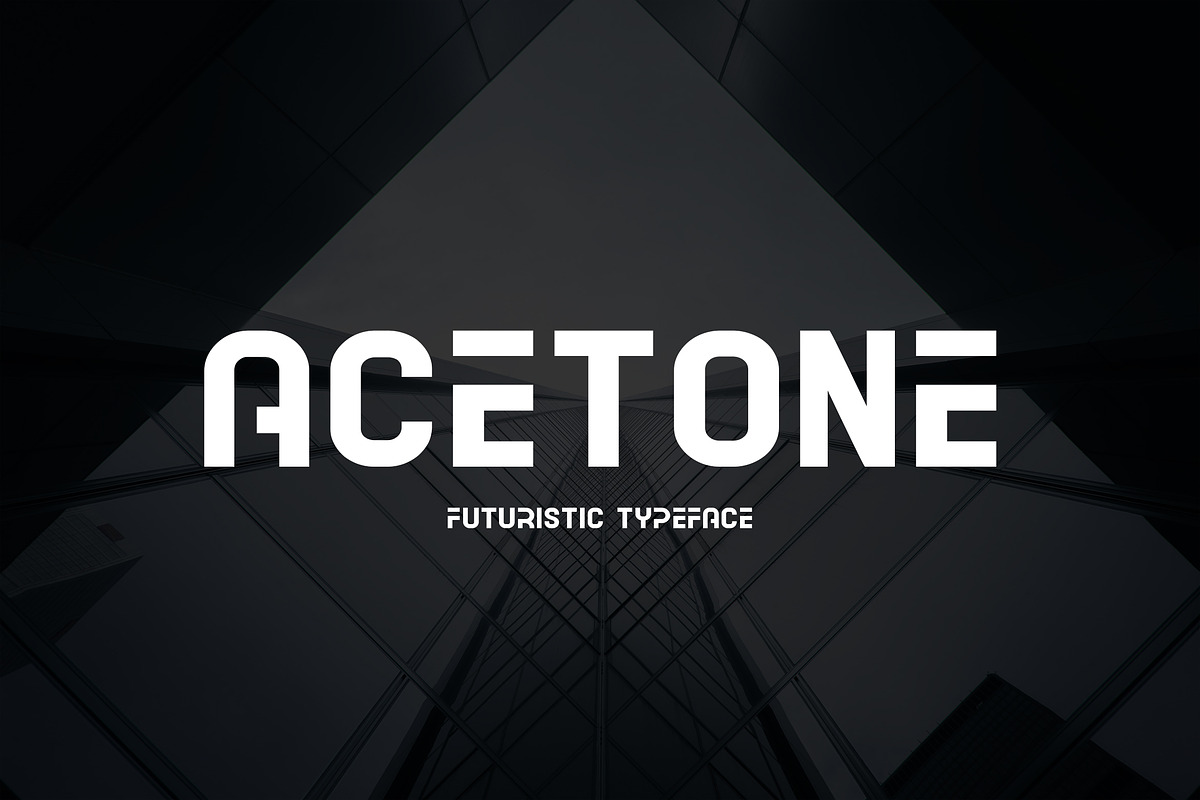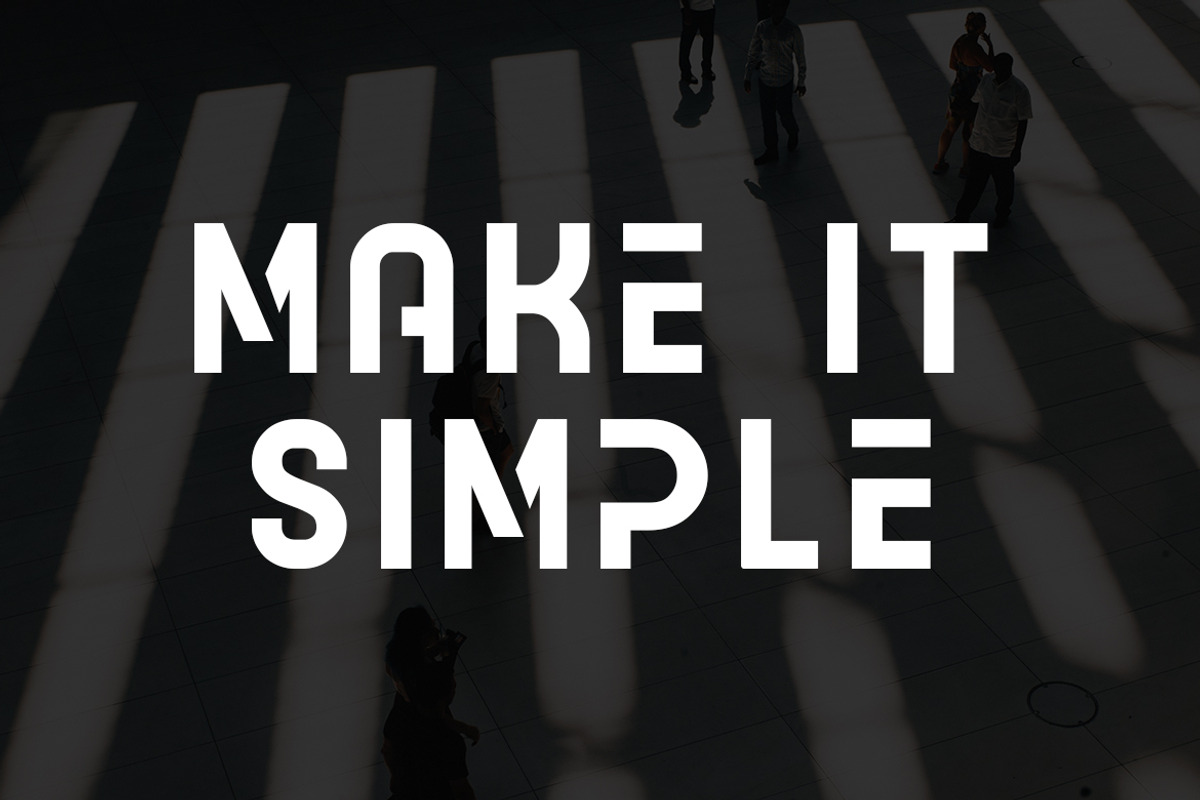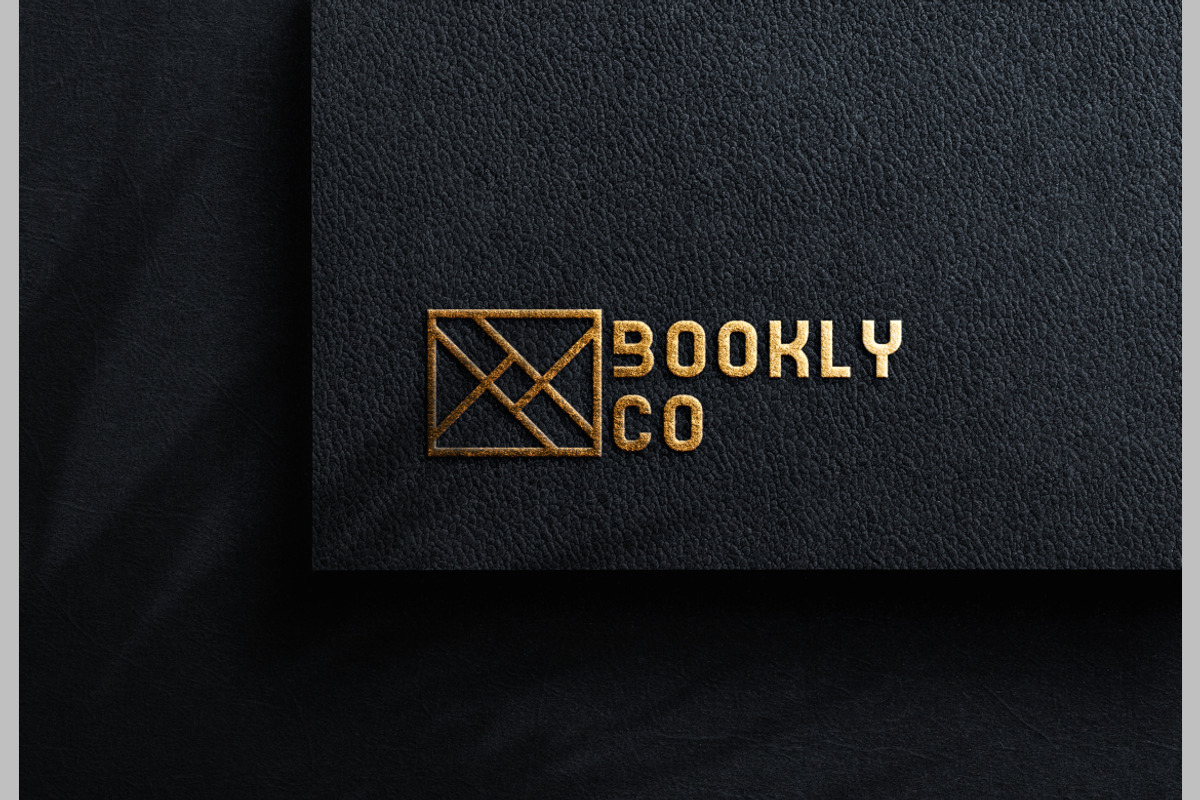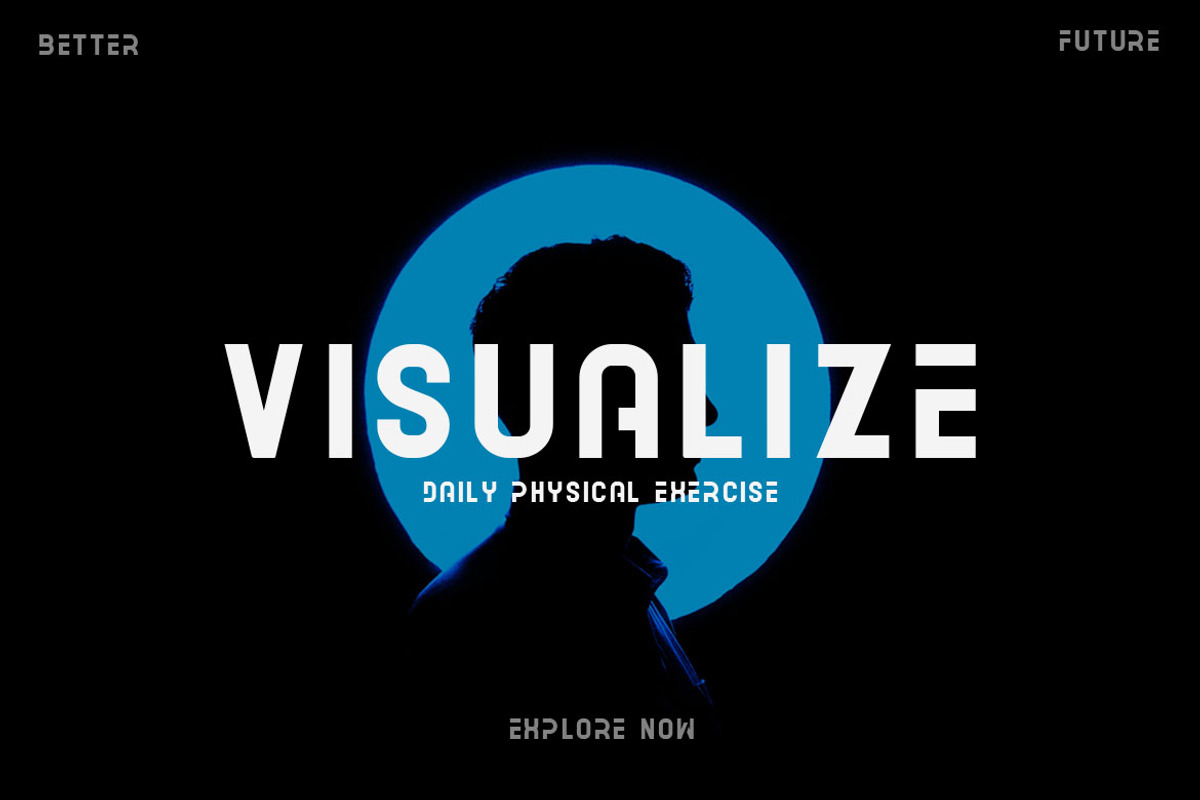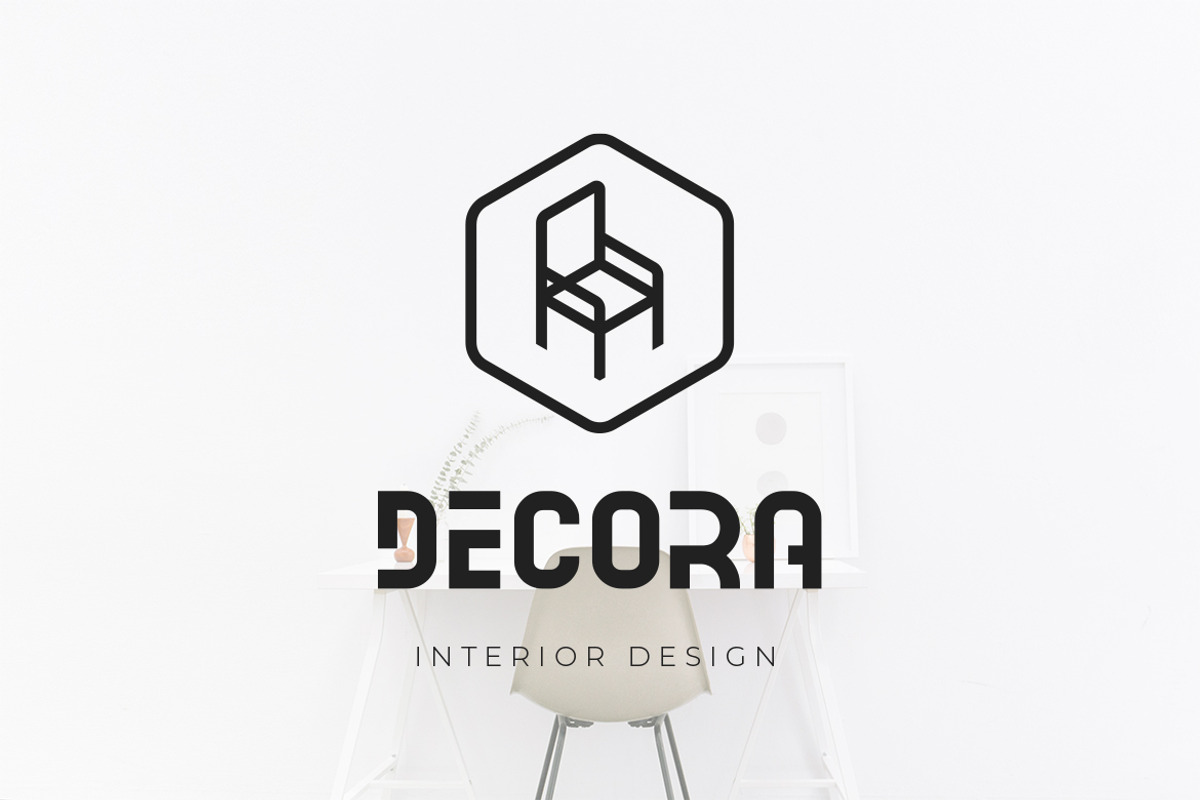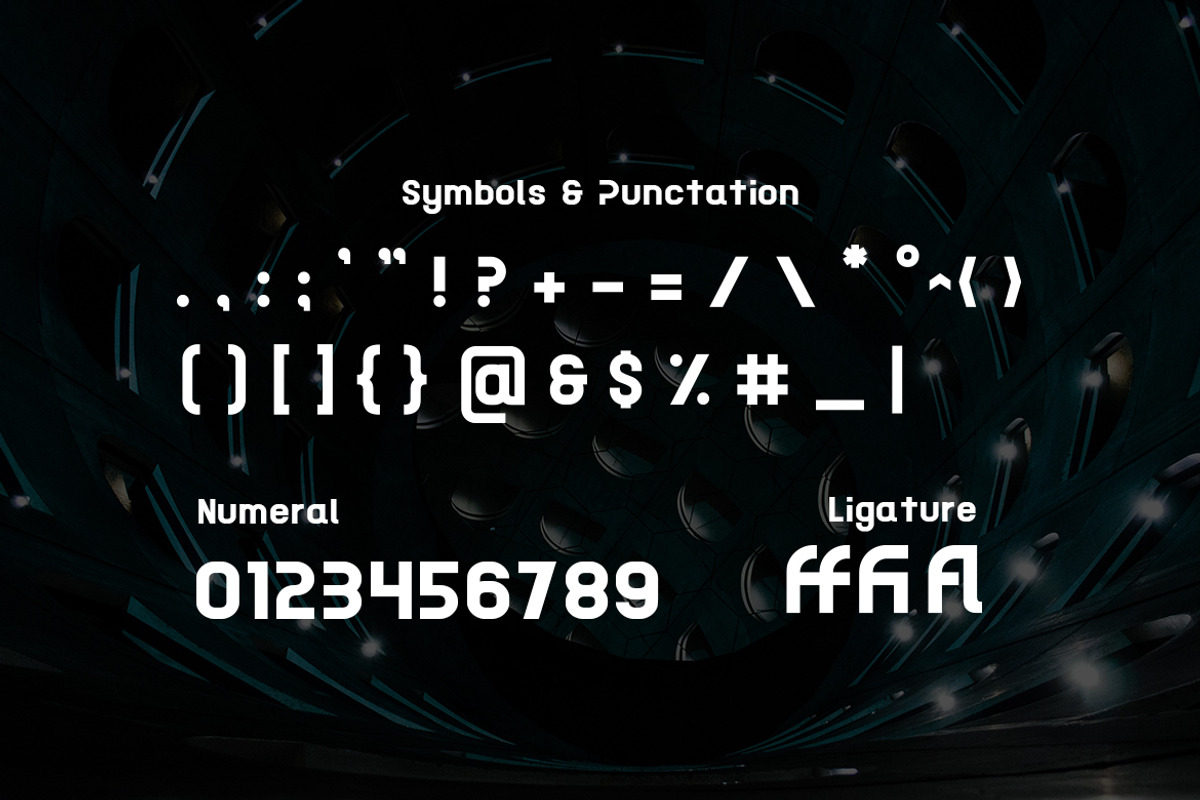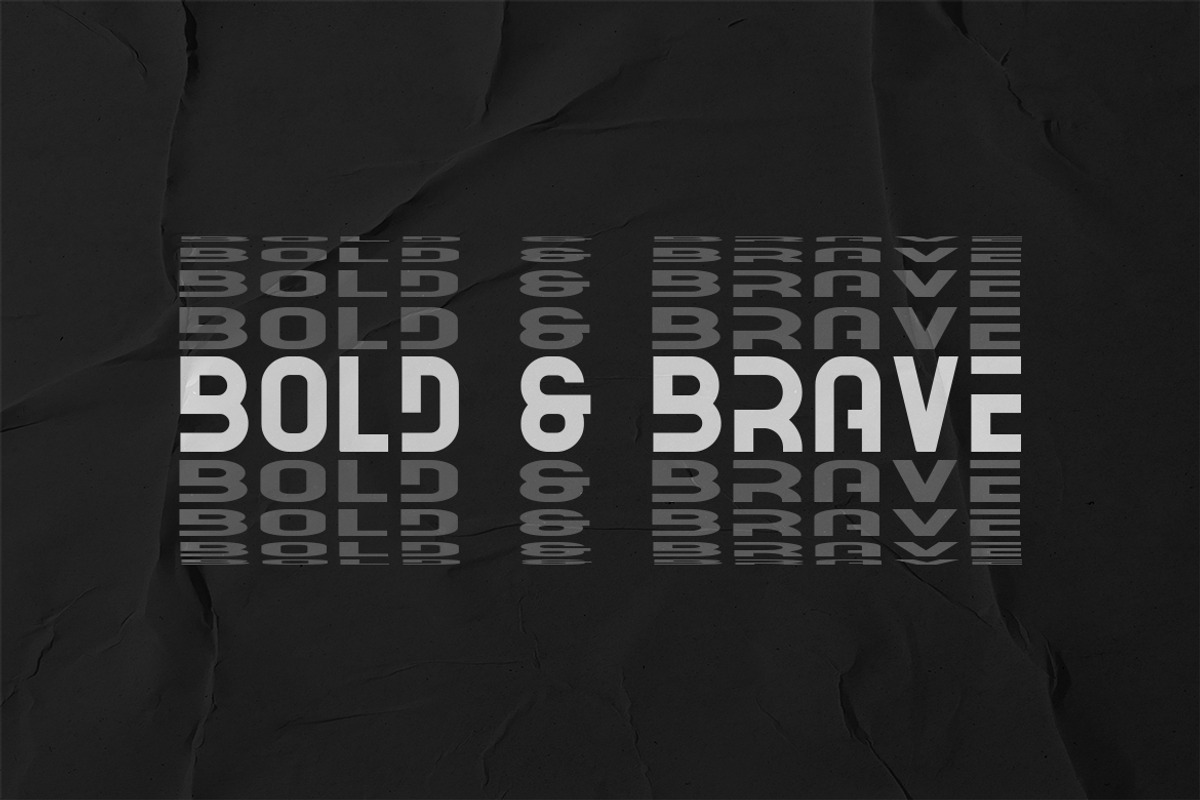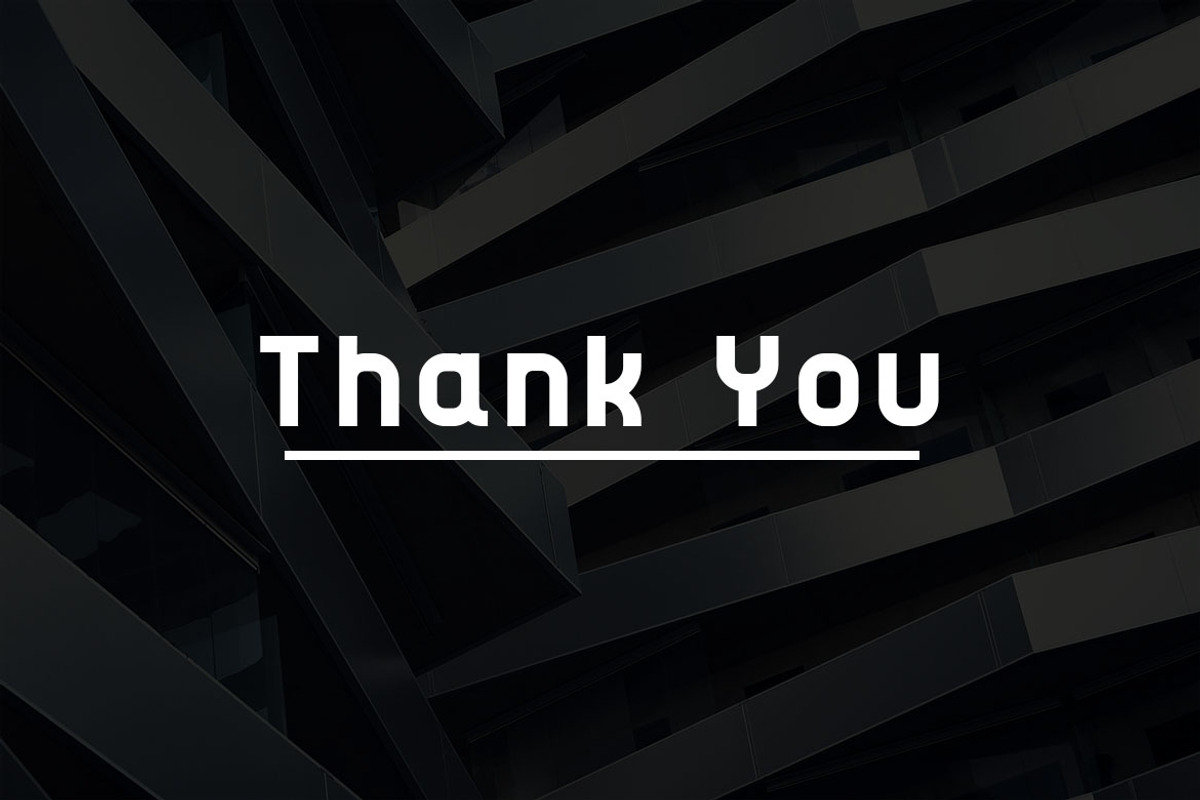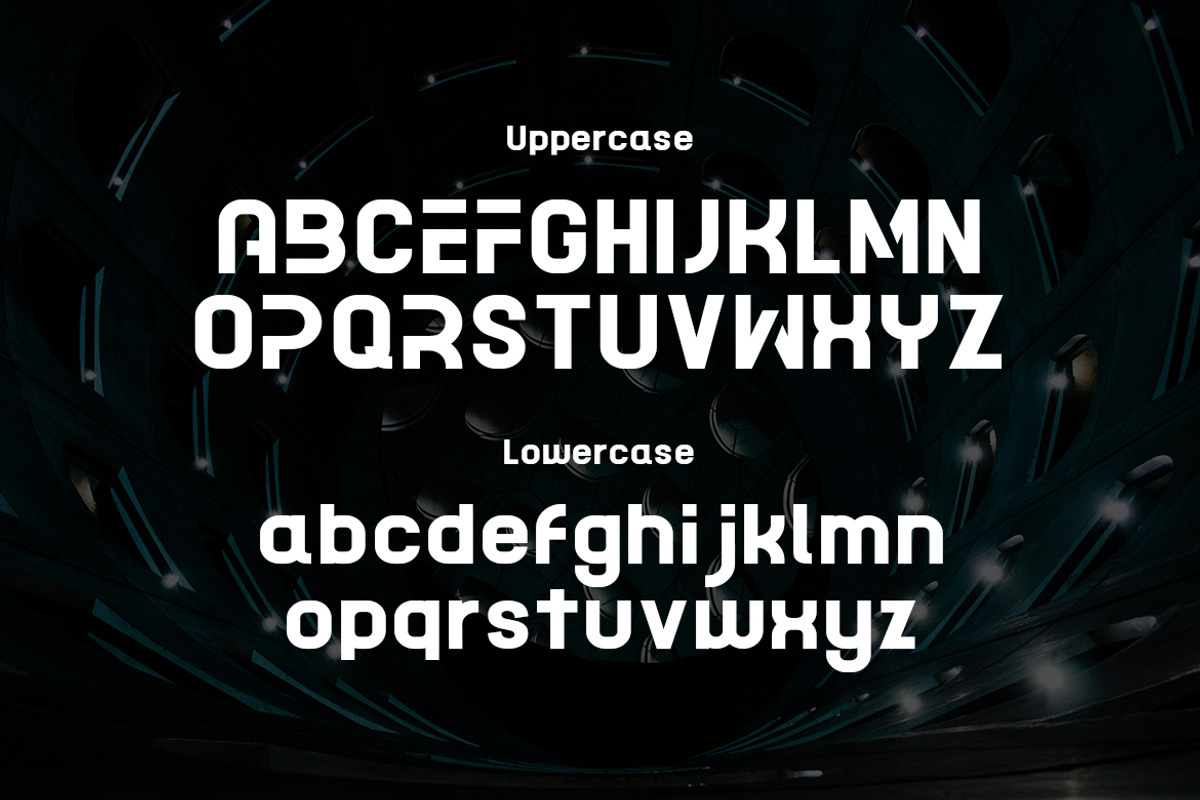
Acetone – Futuristic Font
Acetone is a futuristic font for design of minimalistic logos and store brand. The font is suitable for creating wordmarks, titles, book cover, taglines, and interior theme.